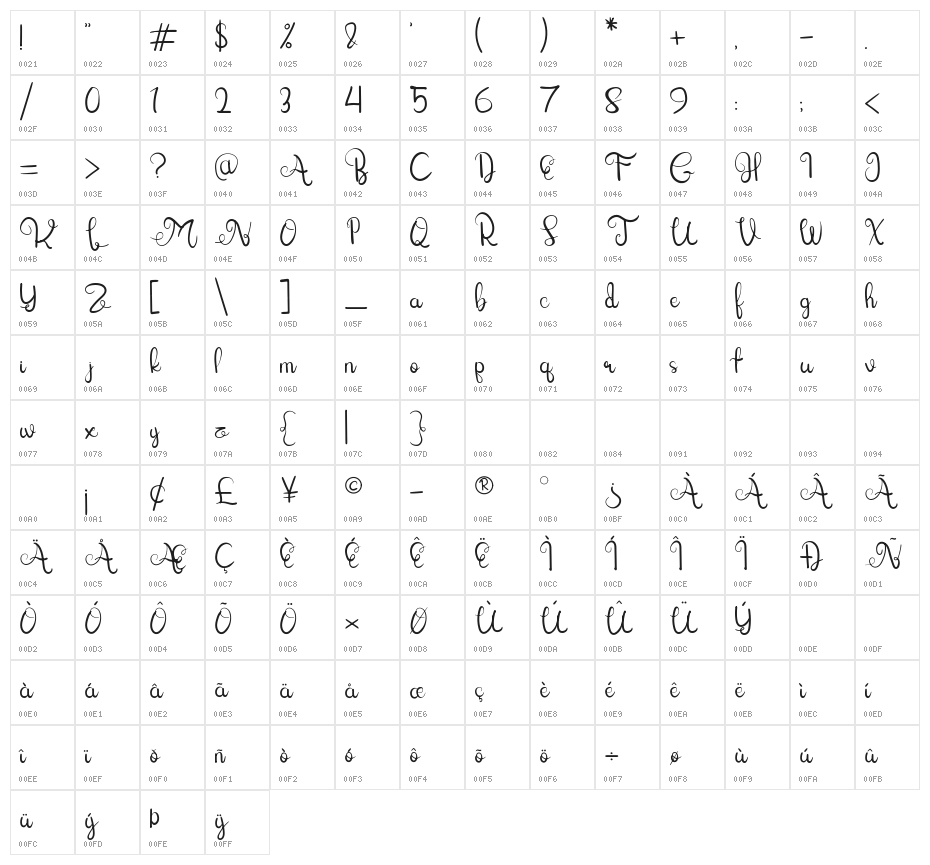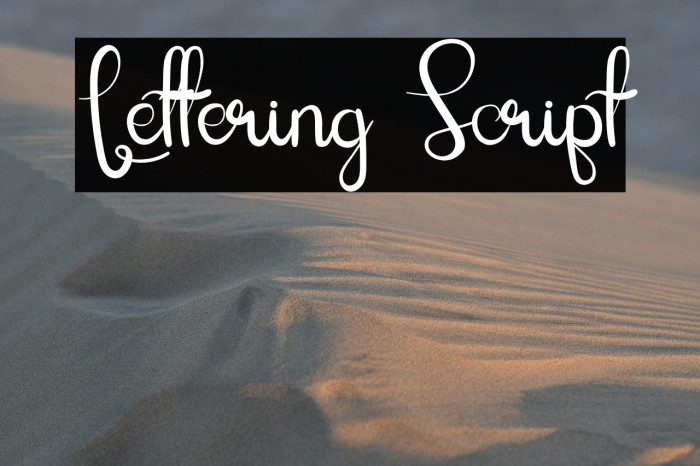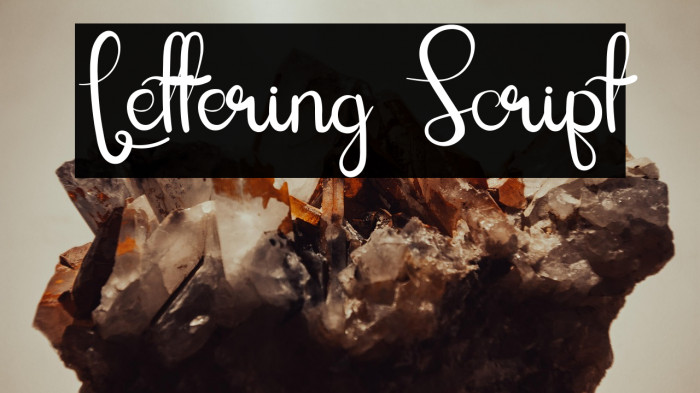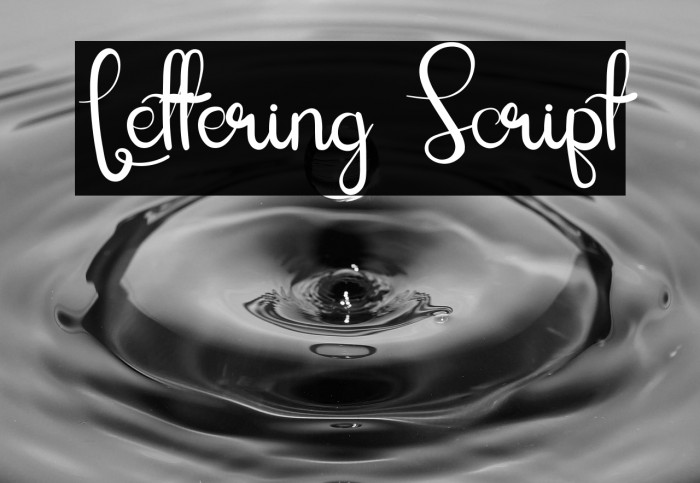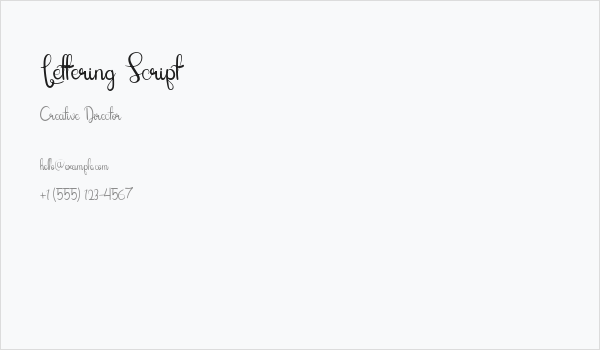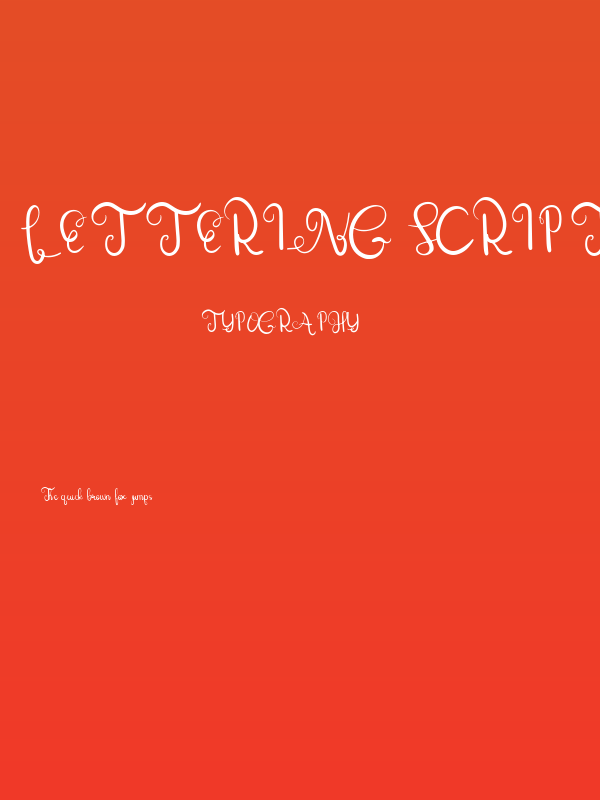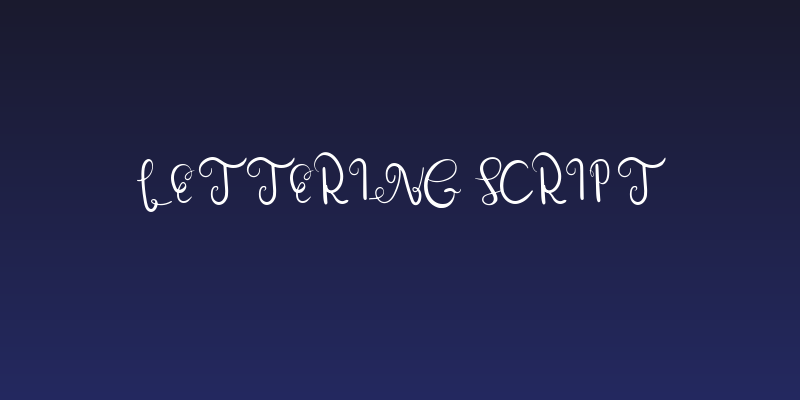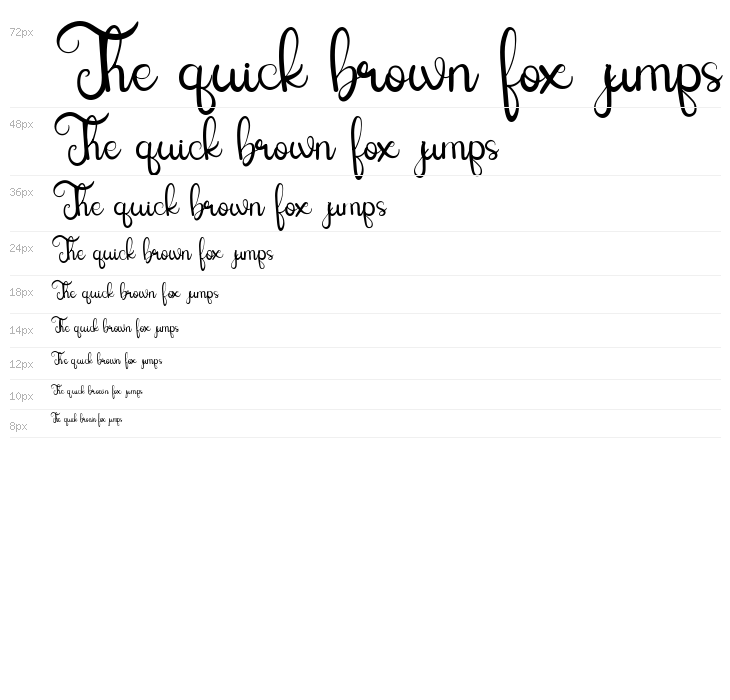
Lettering Script Font
Lettering Script Description
This font features an elegant and flowing script style, characterized by its smooth, cursive letterforms that mimic the fluidity of handwriting. The uppercase letters are adorned with decorative swirls and loops, adding a touch of sophistication and flair. The lowercase letters maintain a consistent flow, with gentle curves and connections that enhance readability while preserving the artistic quality. Numbers and special characters are designed to complement the overall script aesthetic, ensuring a cohesive look across all text elements. This font is ideal for projects that require a personal, artistic touch, such as invitations, greeting cards, and branding materials.
| Use Case | Logos, Headlines, Artistic projects |
| Proposed Projects | Ideal for invitations, greeting cards, branding, and artistic projects. |